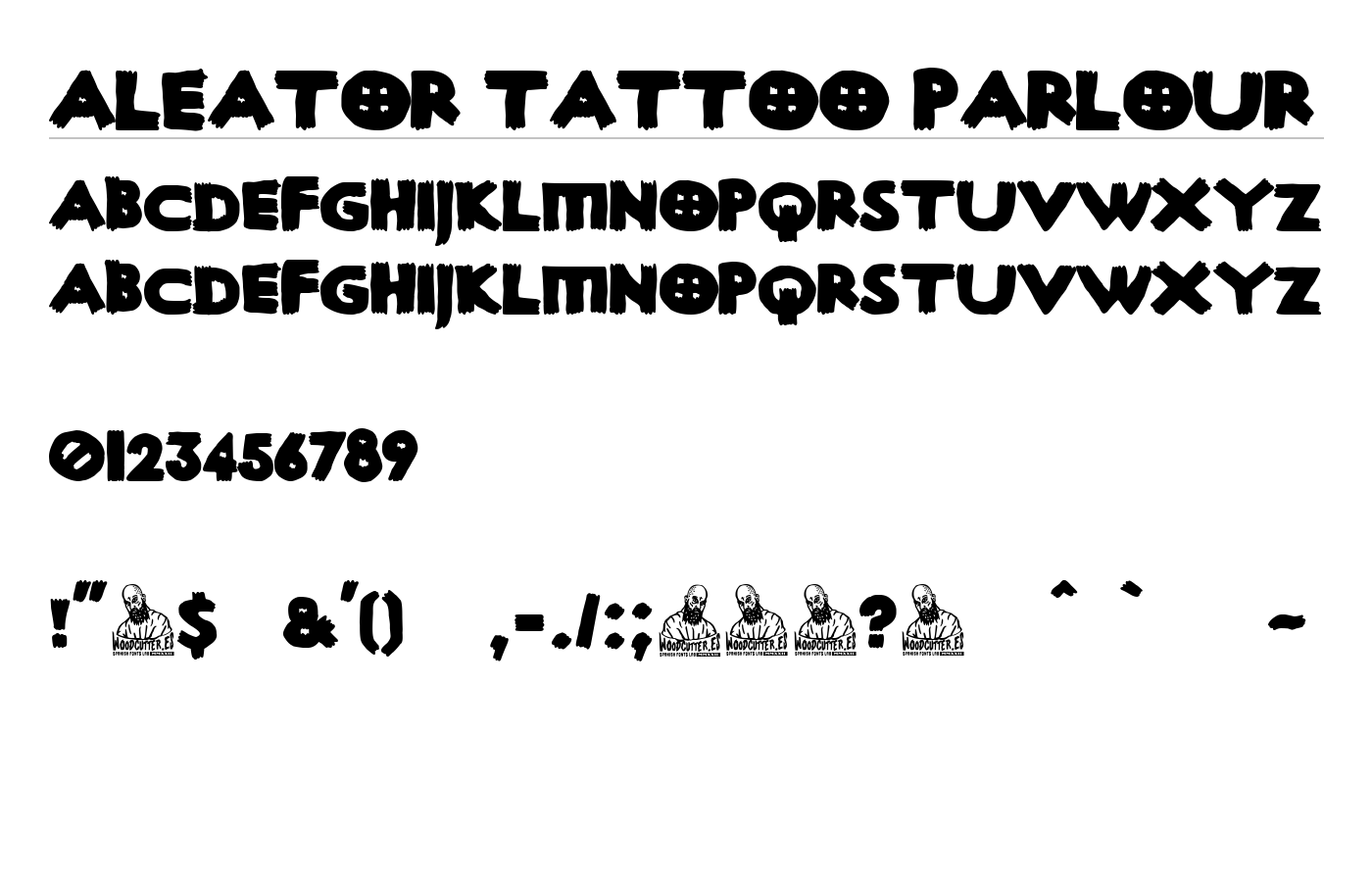
Aleator Tattoo Parlour is a bold, heavy-weight sans serif font with a playful, distressed style that evokes a hand-painted or tattoo-inspired aesthetic. Its irregular edges and quirky letterforms, including unique circular cutouts in letters like O and Q, give it a gritty, vintage feel that works well for edgy branding, posters, or creative projects needing strong visual impact. This font excels in headlines and display use where its bold personality can stand out.
Aleator Tattoo Parlour Font
About Aleator Tattoo Parlour Font